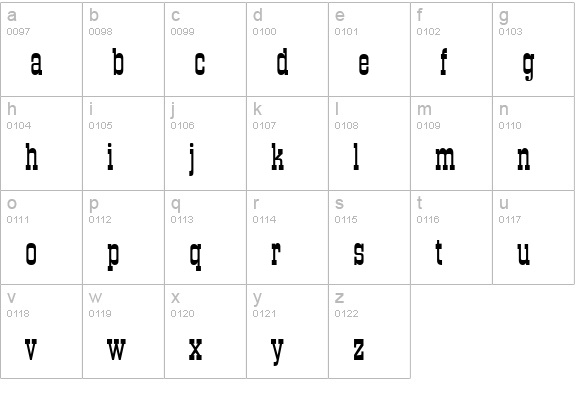
QTOKCorral Regular Font Details
QTOKCorral Regular is the standard, neutral variant in the QTOKCorral typeface family \xE2\x80\x94 well suited to general body text, paragraphs, and standard typographic work.
QTOKCorral Regular is a versatile and stylish font that will add a touch of charm and authenticity to any design project. With its clean lines and playful curves, this font captures the essence of the Wild West with a modern twist. Whether you're working on a poster, logo, or website, QTOKCorral Regular will make your text pop and grab attention. One of the best things about QTOKCorral Regular is that it is completely free. Yes, you read that right - you can download and use this font without spending a dime. It's the perfect solution for designers on a budget or anyone looking to add a unique touch to their creations without breaking the bank. To get your hands on this incredible font, simply head over to FontsMarket.com. There, you'll find a vast collection of fonts, including QTOKCorral Regular, all available for free download. FontsMarket.com is a trusted source for high-quality and professionally designed fonts, making it the go-to destination for designers and creatives alike. Don't miss out on the opportunity to enhance your designs with the distinctive charm of QTOKCorral Regular. Download it now for free at FontsMarket.com and let your creativity run wild.